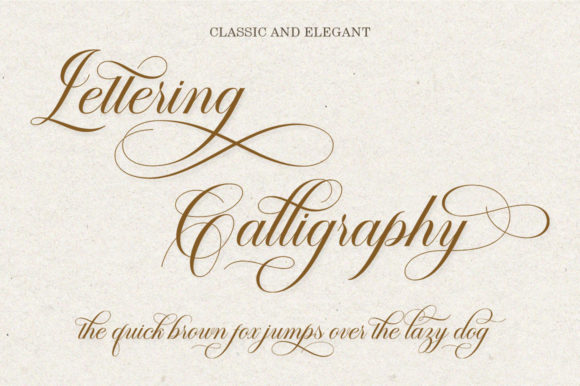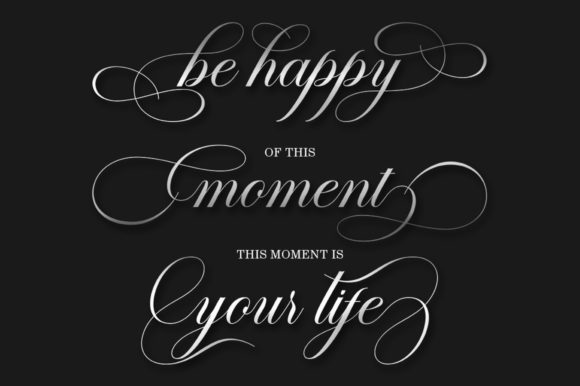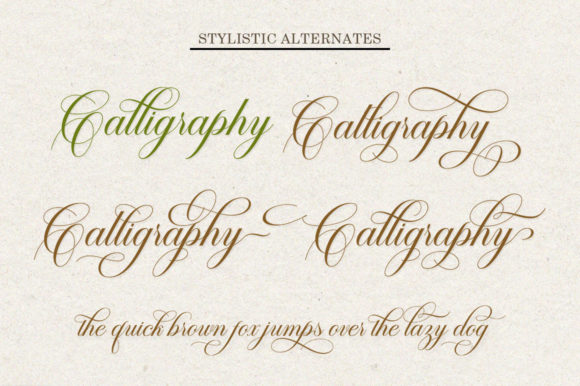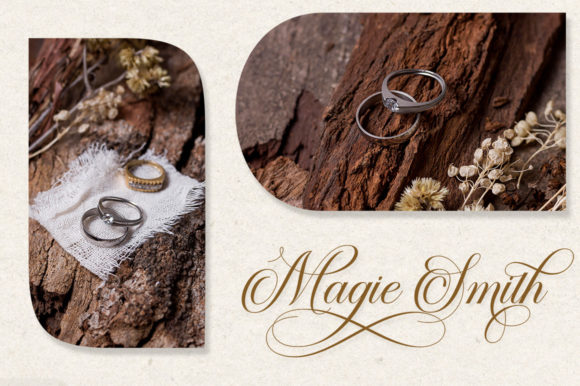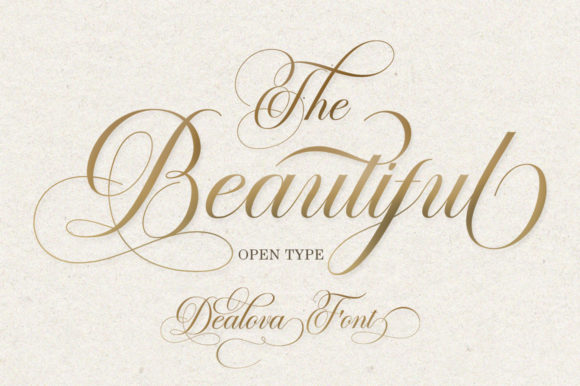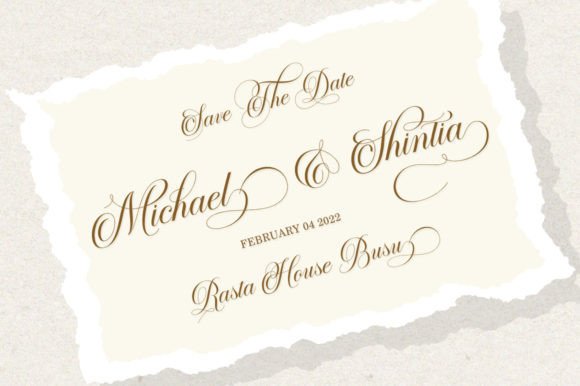
Introducing Dealova Font: Elevate Your Designs with Elegance and Sophistication
In the world of typography, a font can make or break a design. For designers and crafters seeking to add a touch of class and modernity to their work, Dealova Font is an exceptional choice. This beautiful and refined script font is designed to bring an air of elegance and sophistication to various design projects, including logos, branding, invitations, stationery, wedding designs, social media posts, and more.
What Makes Dealova Font Stand Out?
Dealova Font boasts a classy, elegant, and modern look that sets it apart from other script fonts. Its refined strokes and beautiful swashes make it perfect for designers looking to create stunning visual content. Whether you’re working on a wedding invitation, a brand logo, or a social media post, Dealova Font is sure to impress.
Key Features of Dealova Font
- PUA Encoded: Dealova Font is PUA (Private Use Area) encoded, which means you can access all glyphs and swashes with ease. This feature allows for greater flexibility and creativity in your designs.
- Wide Range of Applications: From logos and branding to invitations, stationery, wedding designs, and social media posts, Dealova Font is versatile and can be used for various design projects.
- Elegant and Modern: With its refined strokes and beautiful swashes, Dealova Font brings an air of elegance and modernity to any design.
Why Choose Dealova Font?
For designers and crafters, choosing the right font can be a daunting task. Here are a few reasons why Dealova Font stands out:
- Unique and Versatile: Dealova Font offers a unique and versatile design that can be used for a wide range of projects.
- High-Quality Design: With its refined strokes and attention to detail, Dealova Font is a high-quality design that will elevate your work.
- Easy to Use: As a PUA encoded font, Dealova Font is easy to use and allows you to access all glyphs and swashes with ease.
How to Use Dealova Font in Your Designs
Using Dealova Font in your designs is easy. Here are a few tips to get you started:
- Pair it with Other Fonts: Dealova Font pairs well with other fonts, making it easy to create stunning visual content.
- Experiment with Swashes: With its PUA encoded feature, you can experiment with different swashes and glyphs to add a personal touch to your designs.
- Use it for Branding: Dealova Font is perfect for branding, and can be used to create a consistent look across various platforms.
In conclusion, Dealova Font is a beautiful and refined script font that is perfect for designers and crafters seeking to add a touch of elegance and sophistication to their work. With its PUA encoded feature, wide range of applications, and high-quality design, Dealova Font is an exceptional choice for various design projects. Whether you’re working on a logo, branding, invitation, or social media post, Dealova Font is sure to impress.